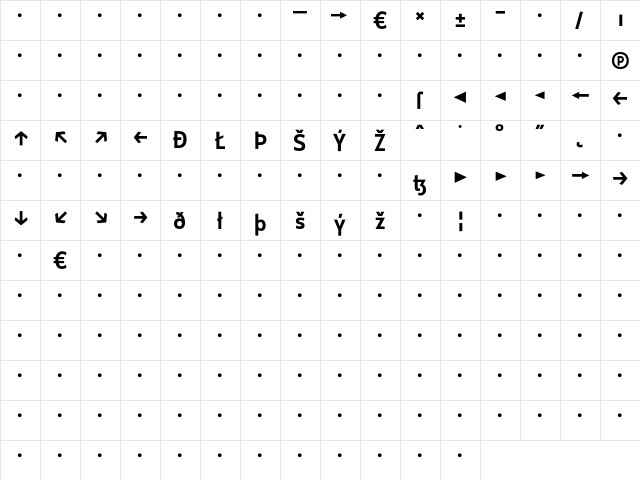
CstBerlinWest MediumExp Font Preview
CstBerlinWest MediumExp
CstBerlinWest MediumExp Font Details
Design Context for CstBerlinWest Typeface
CstBerlinWest offers clean, dependable letterforms without strong stylistic allegiance, making it a practical choice for designers who need flexibility.